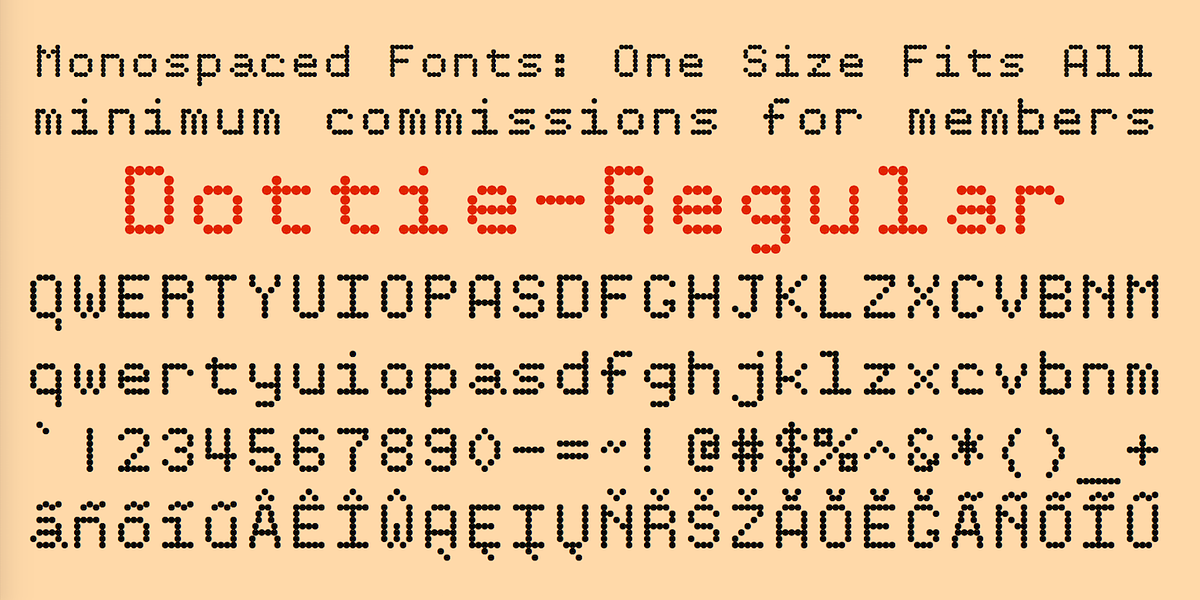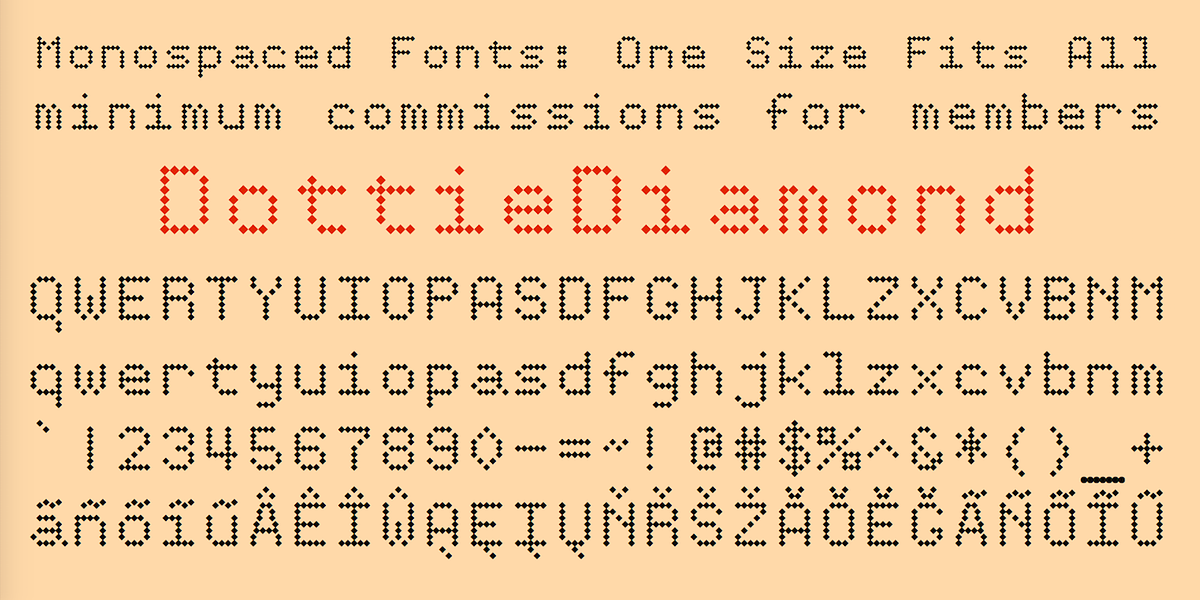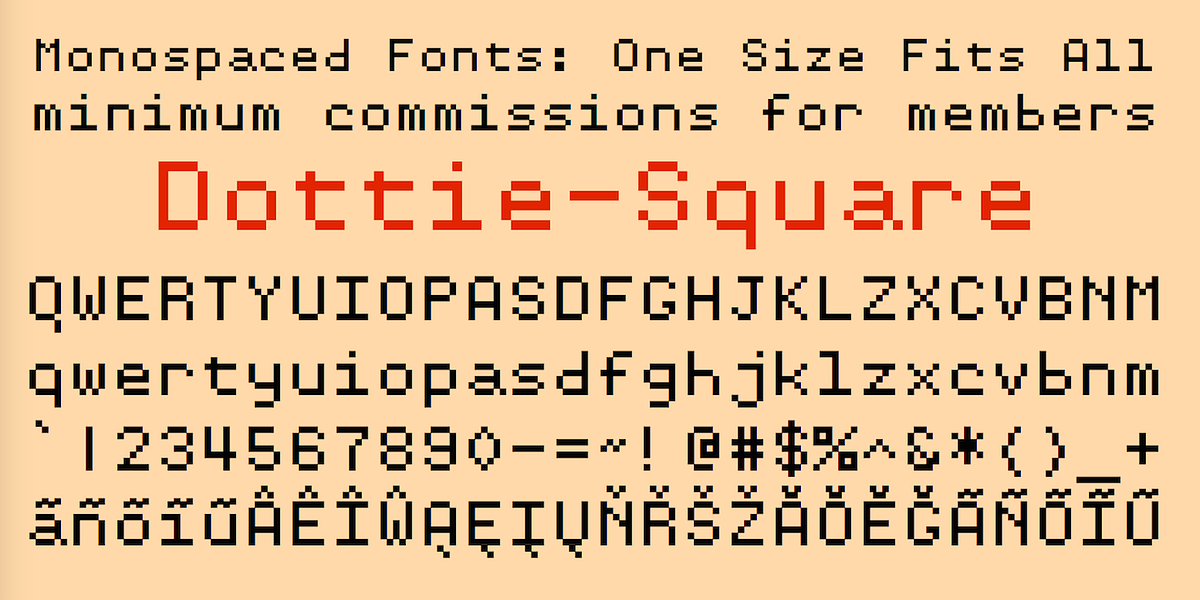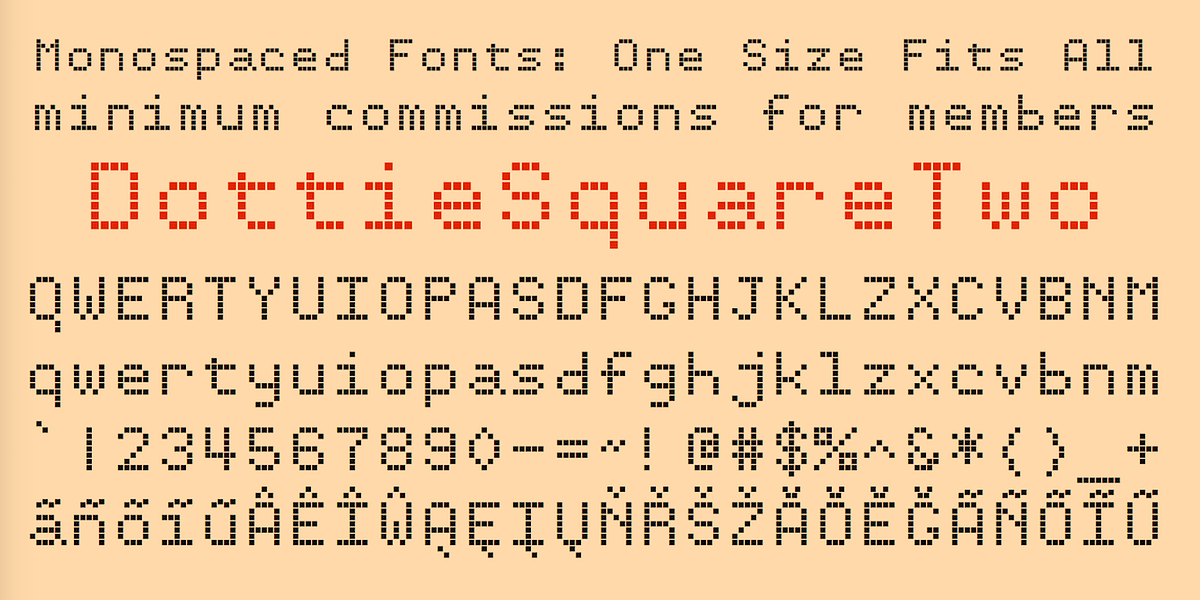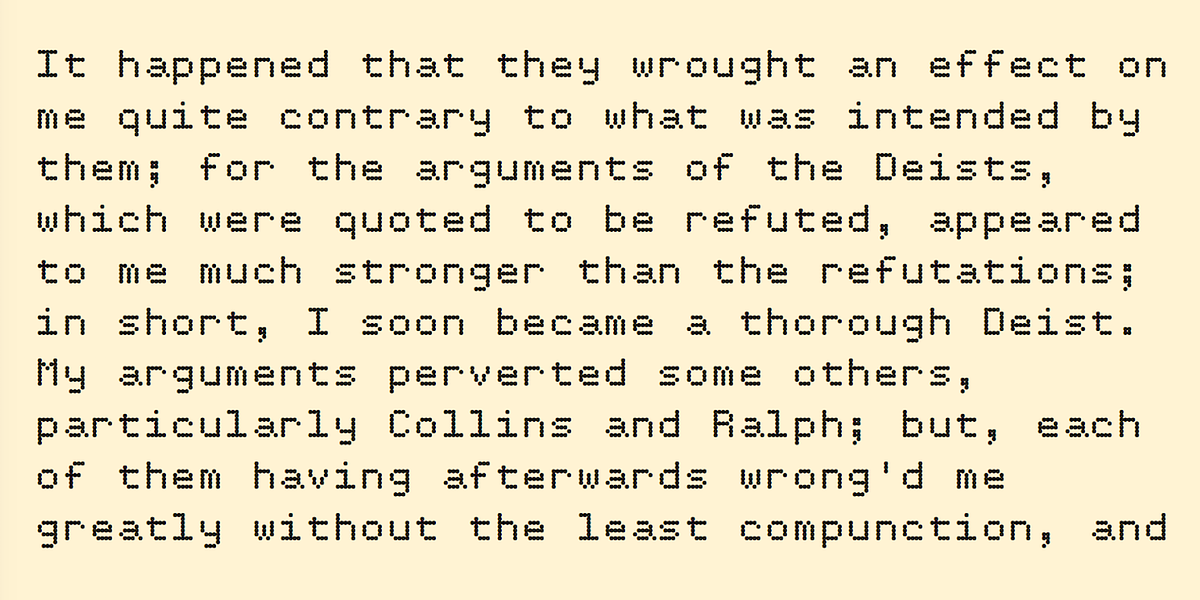
Dottie
Dottie is a display font family inspired by the output of old dot-matrix printers. It features variations with round dots (Dottie-Regular), diamond dots (DottieDiamond), and square dots presented in two styles: overlapping to create bars (DottieSquare) or non-overlapping (DottieSquareTwo).